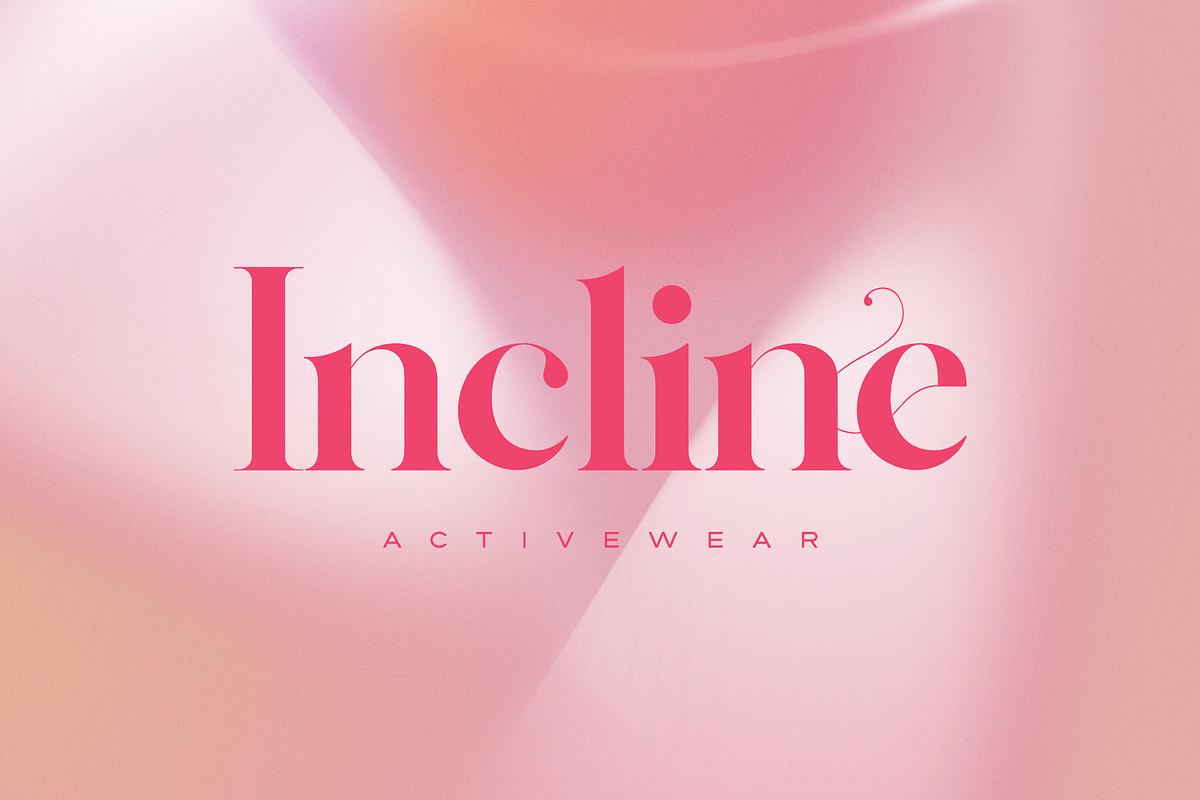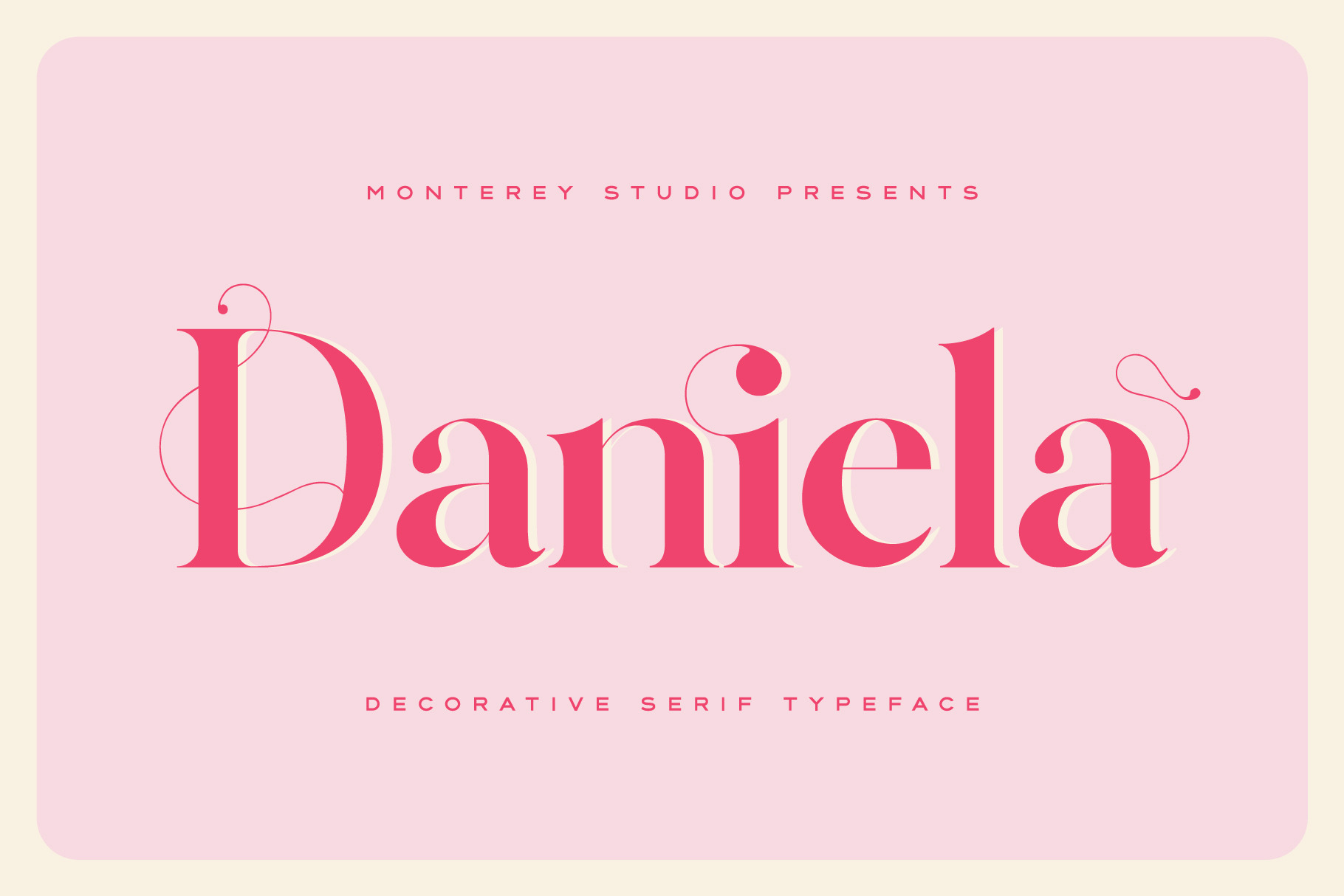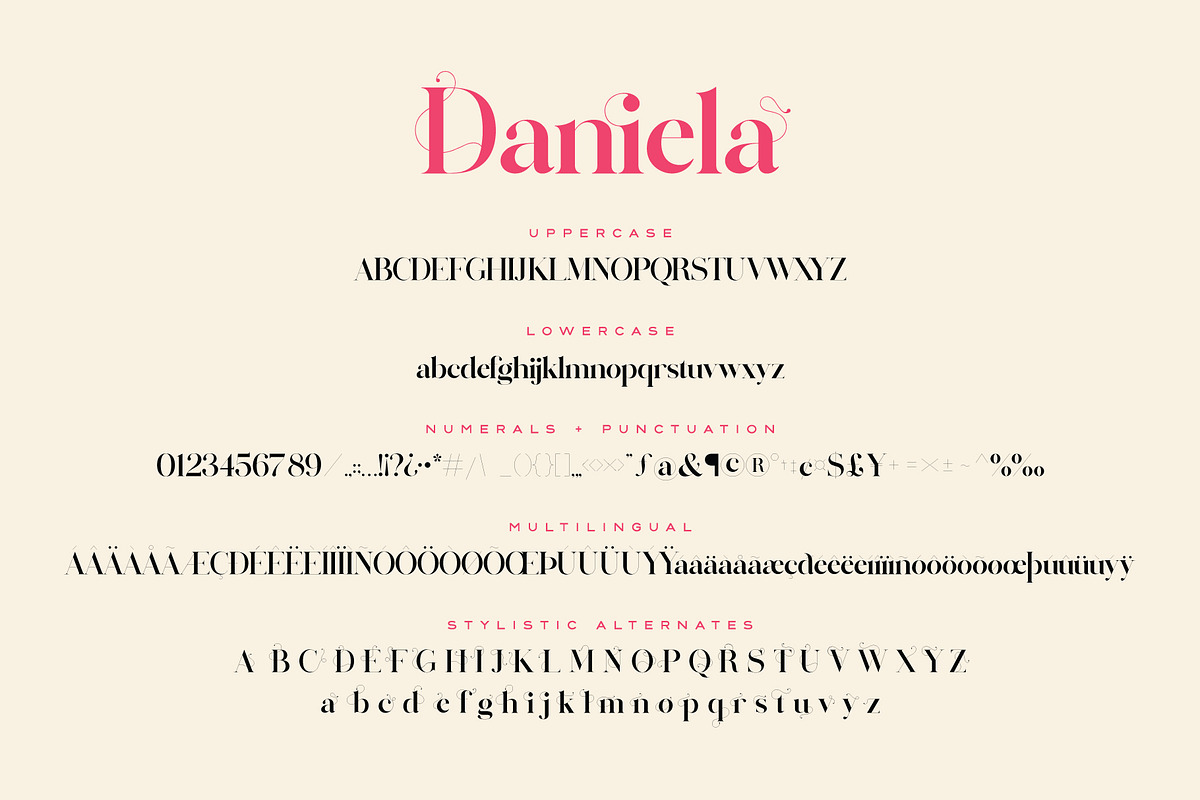
Daniela | Decorative Serif Font
Introducing Daniela! A modern serif font that works perfectly for logos, branding, web headings and wedding stationery. Including a range of ornamental stylistic alternates to add personality to your designs.
Daniela contains multilingual support with accented characters for international (Western European, Central European and South Eastern European) users.